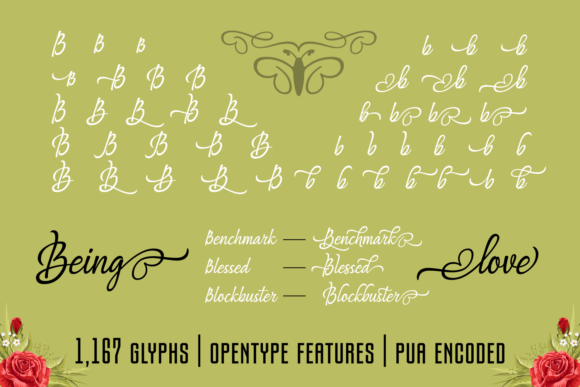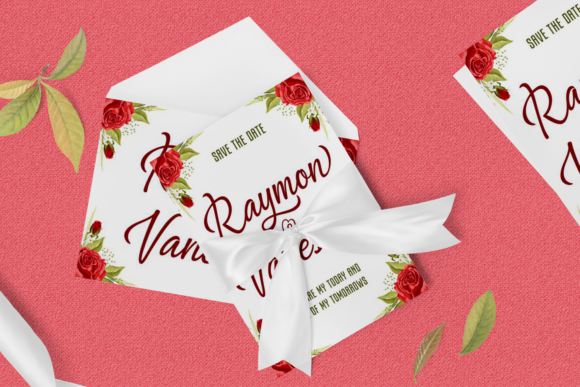
Being Love Duo Font
db-ku.com - Script & Handwritten -- The Being Love is an unique font duo. It includes a luxurious script with a wide variety of swashes, and a striking sans version. Both styles can be combined perfectly and have a perfect readability.